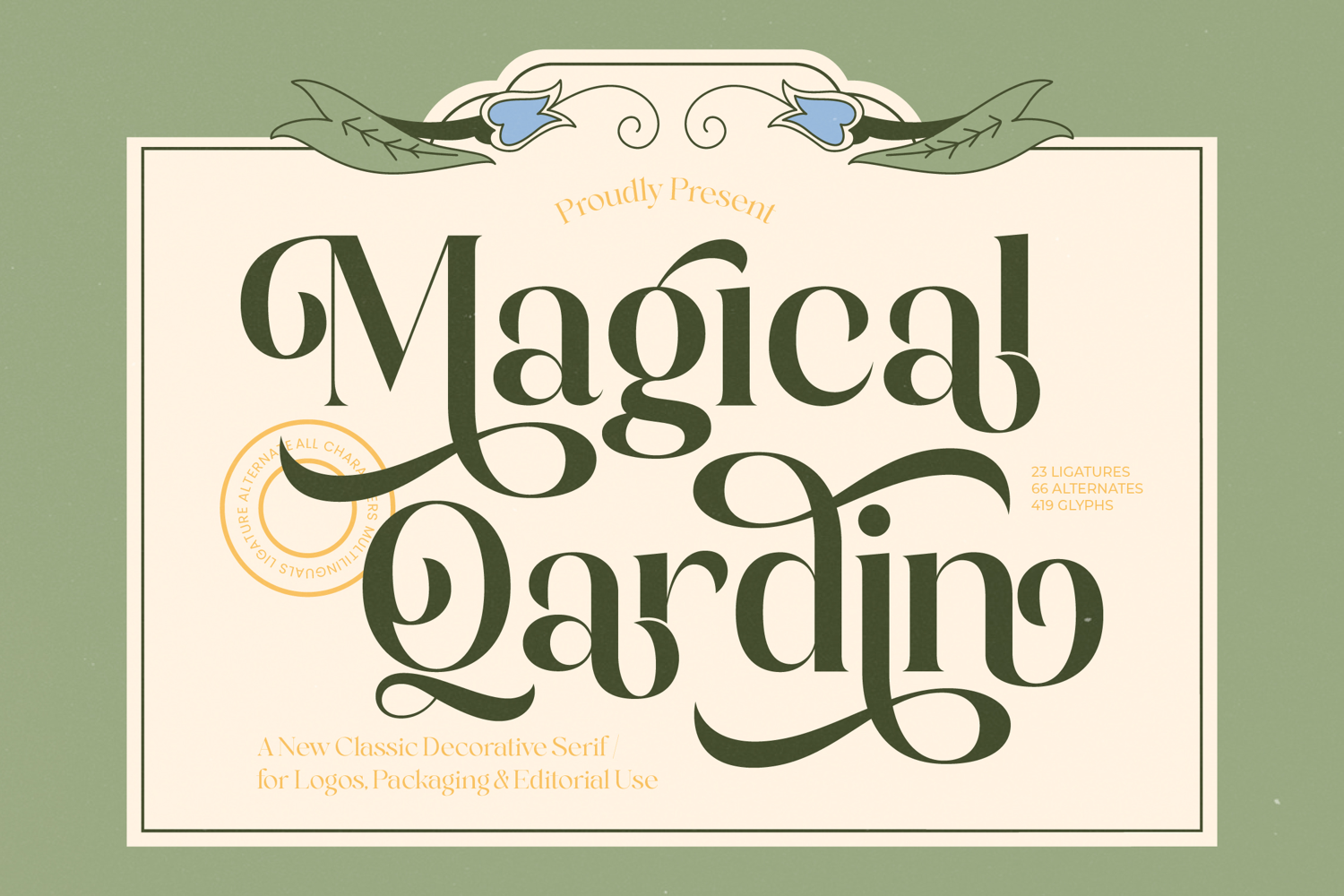
Magical Qardin - Classic Decorative Serif
Magical Qardin - Classic Decorative Serif is the quintessential decorative serif typeface designed for maximum impact. Its construction masterfully balances dramatic high-contrast strokes with flowing, elegant curves, creating a sophisticated and memorable typographic presence. This classic styling ensures that every headline and title captures attention, drawing the viewer into a world of refined luxury and artistry, perfect for brands that demand a powerful, vintage-inspired statement.